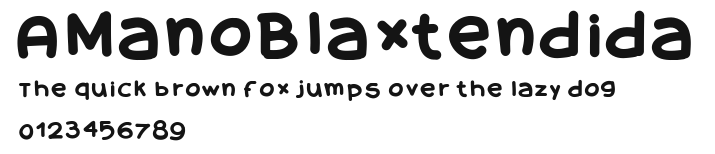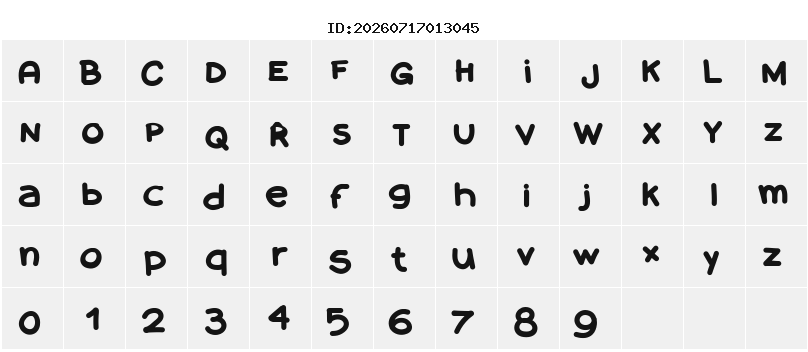
• Font Name: AManoBlaxtendida
• Full Font Name: AManoBlaxtendida
About AManoBlaxtendida.ttf
AManoBlaxtendida.ttf is a modern, elegant sans-serif font designed for ultimate readability and visual harmony. Perfect for branding, headlines, web design, and print materials.